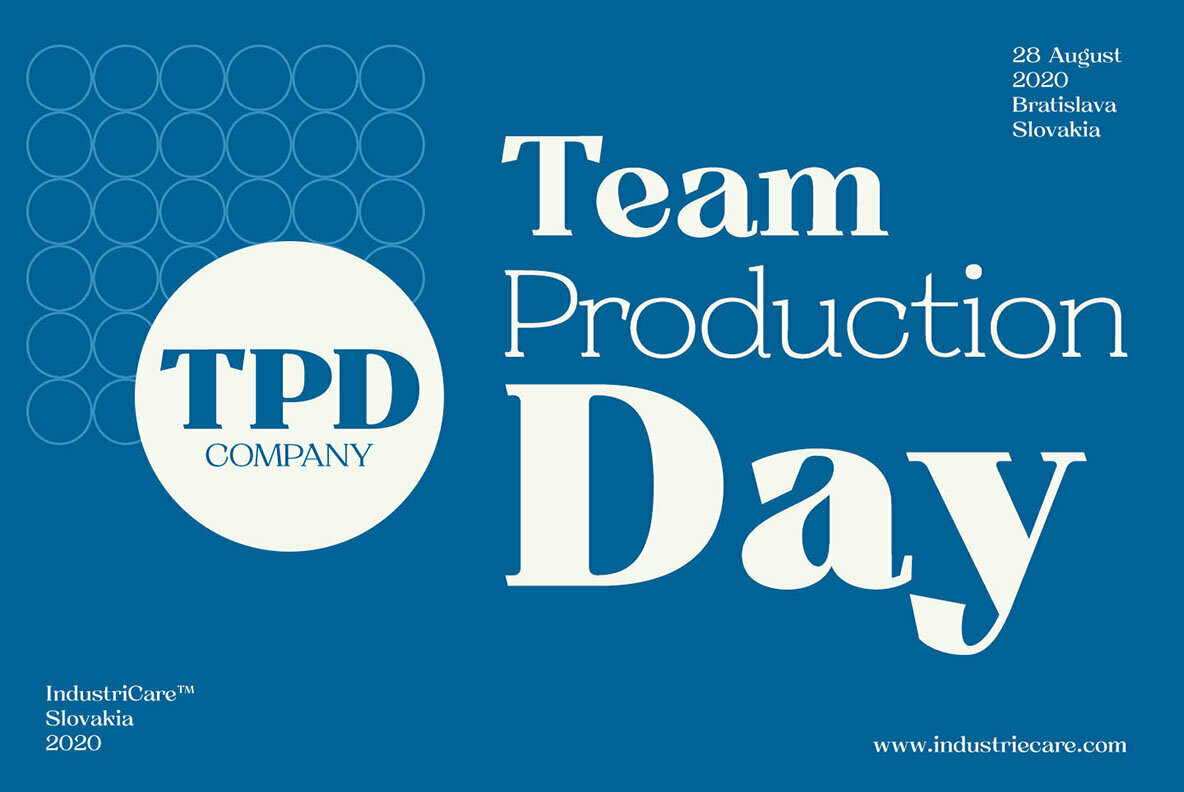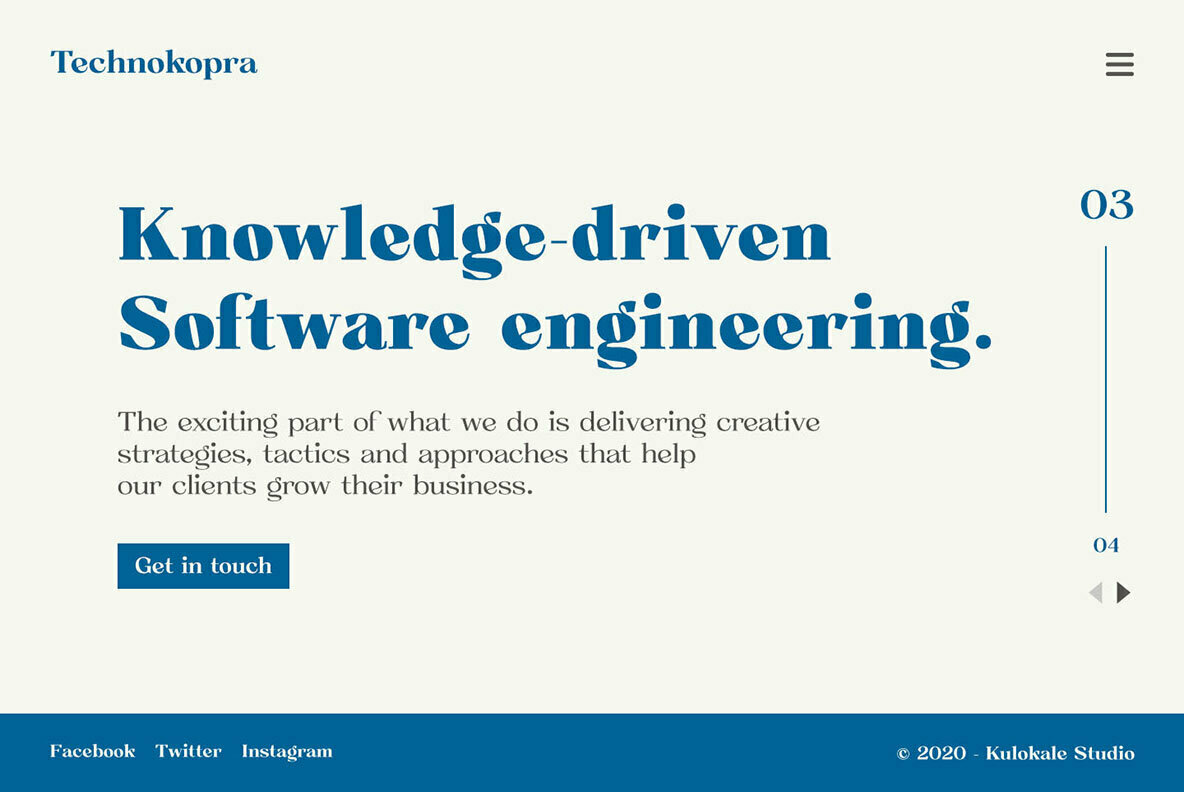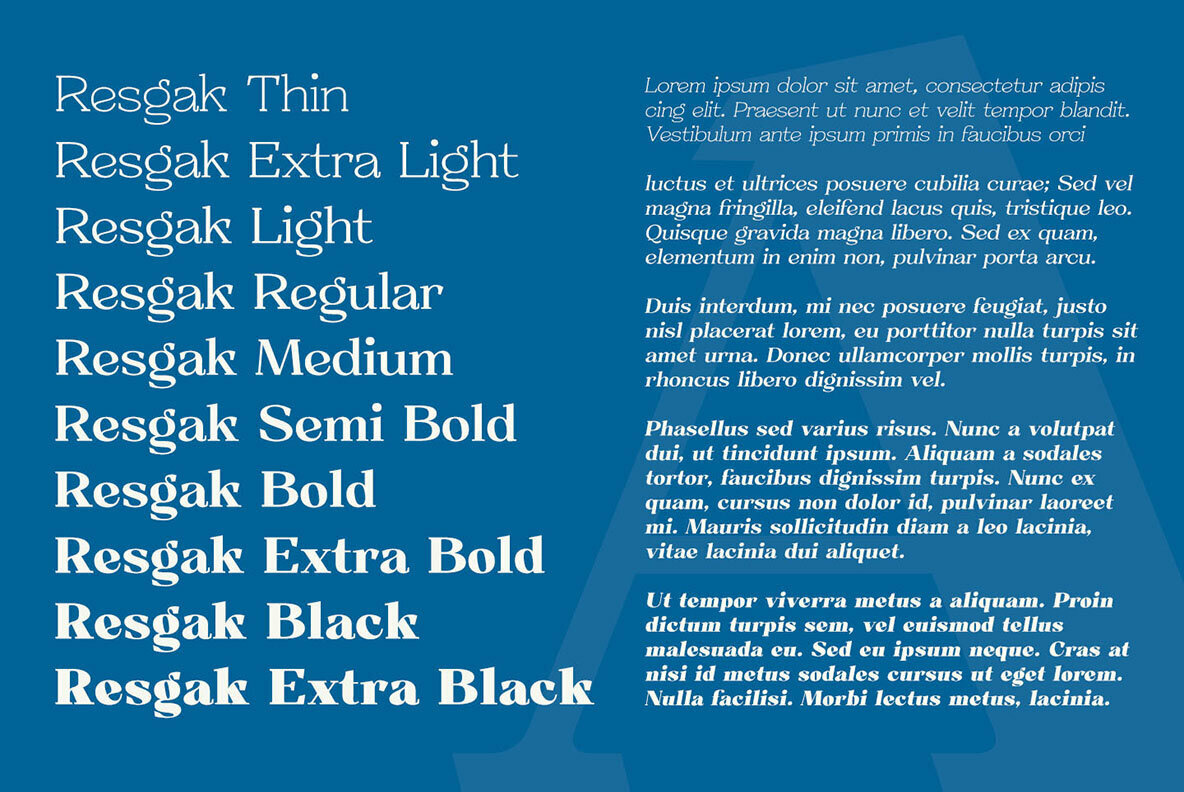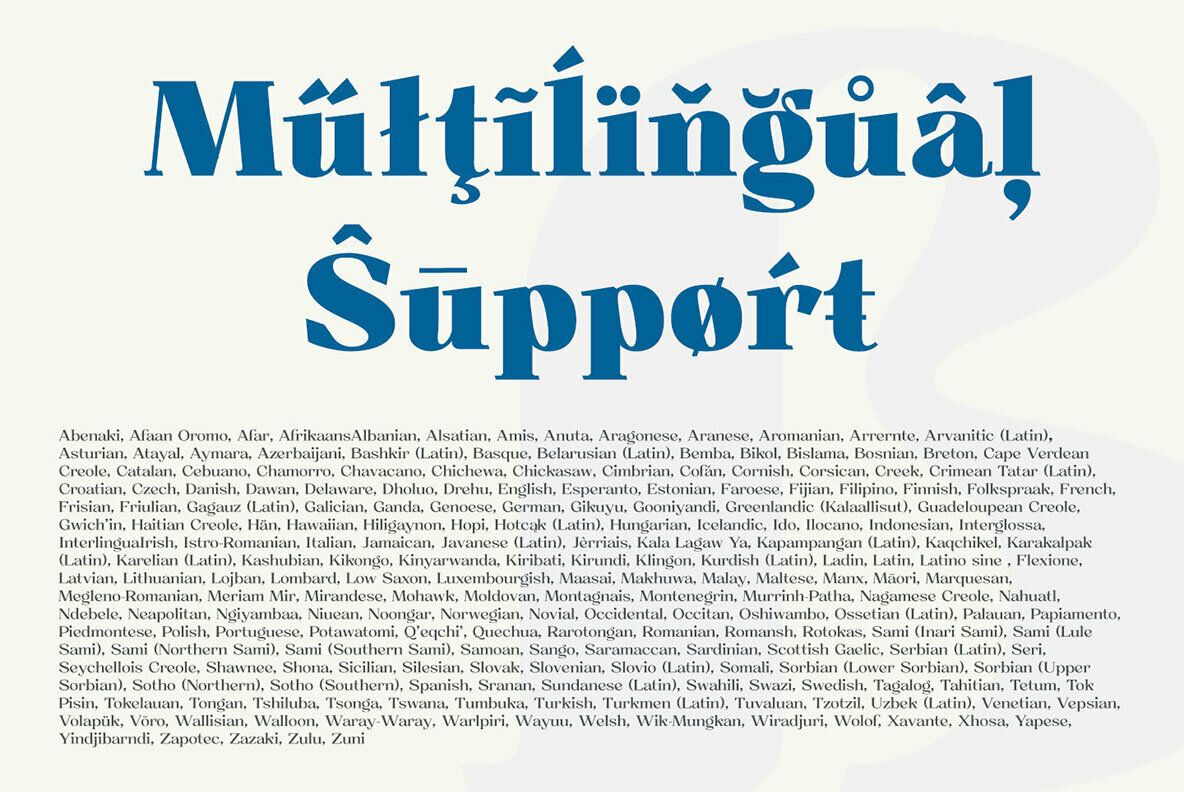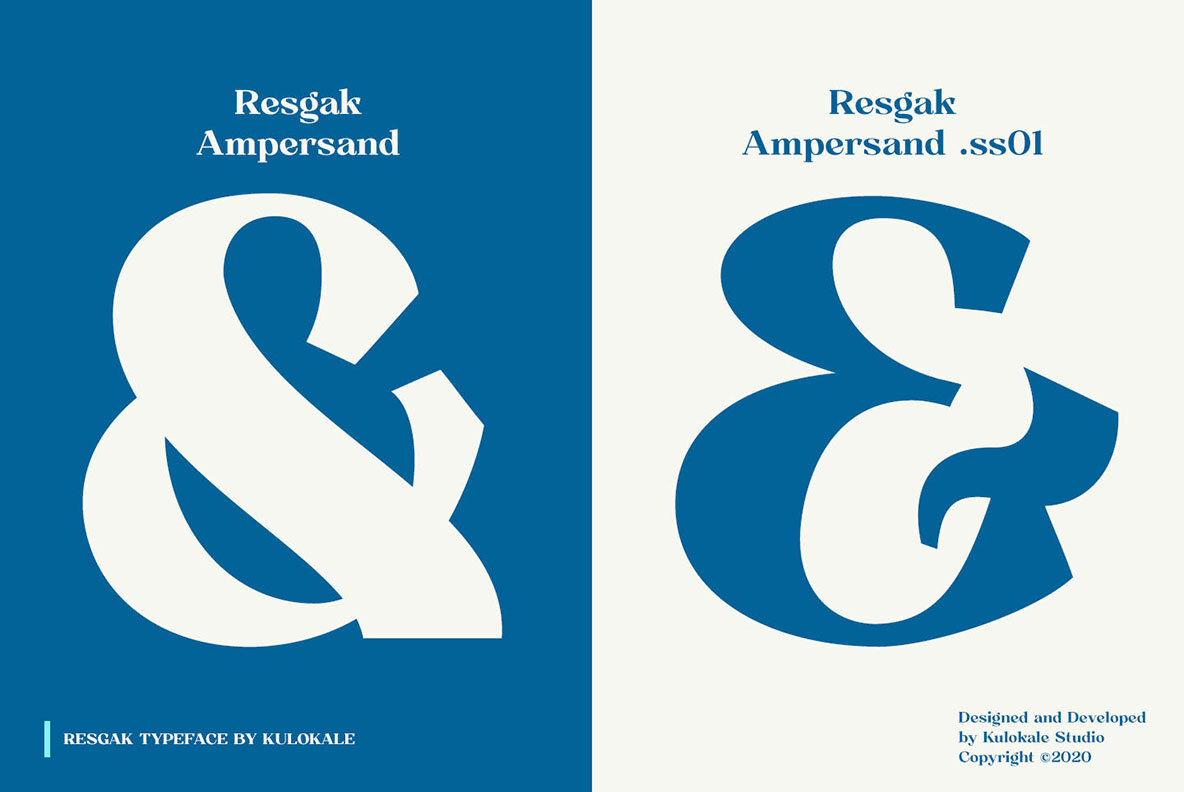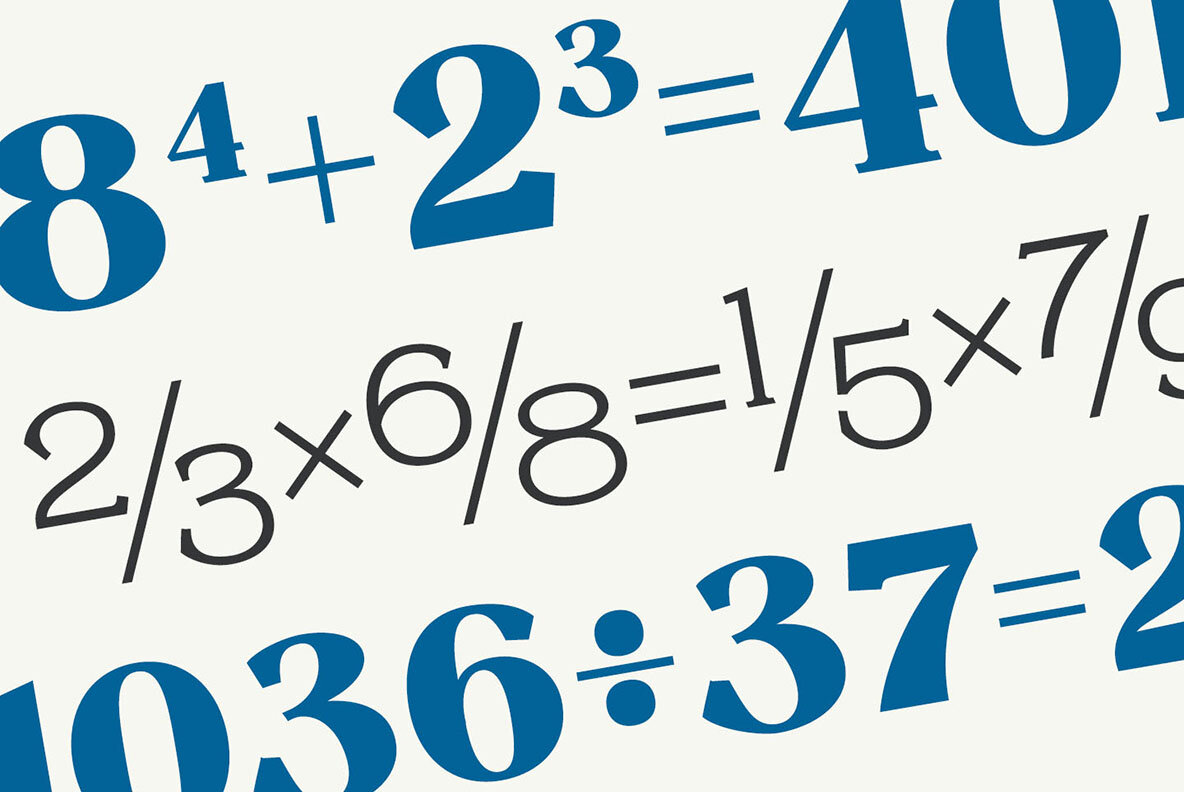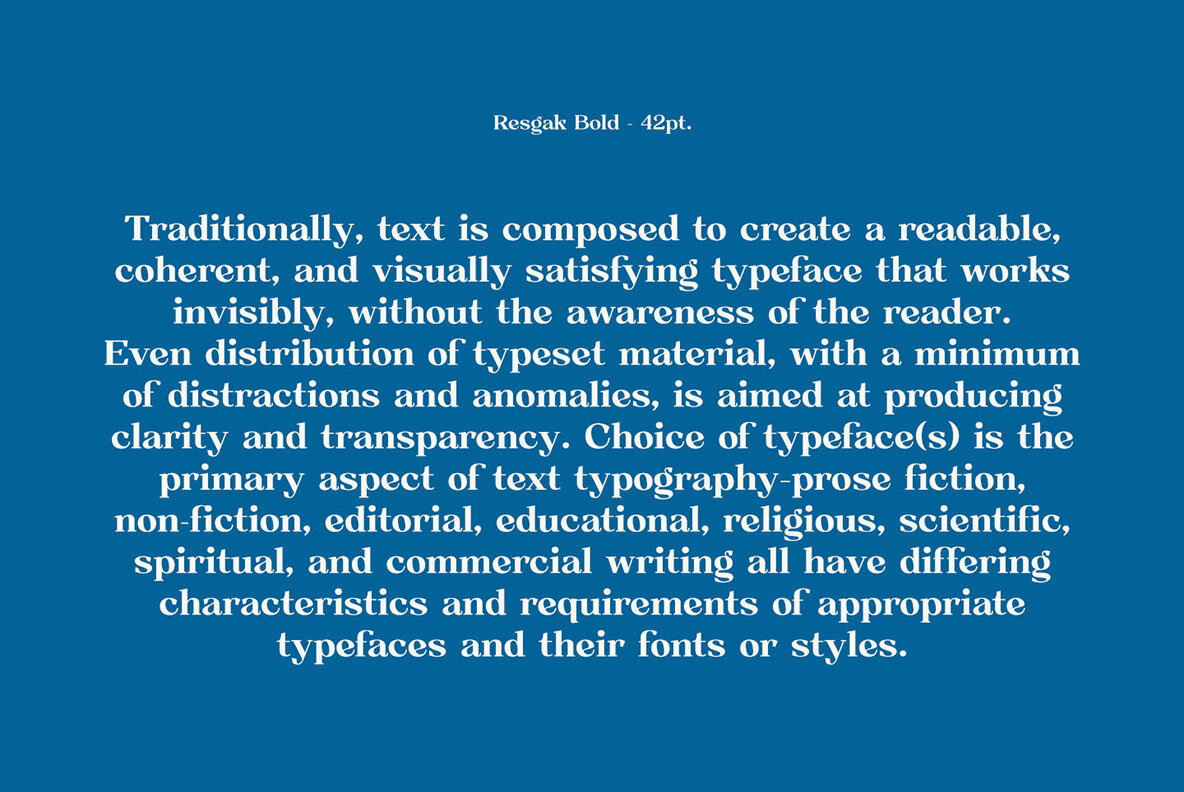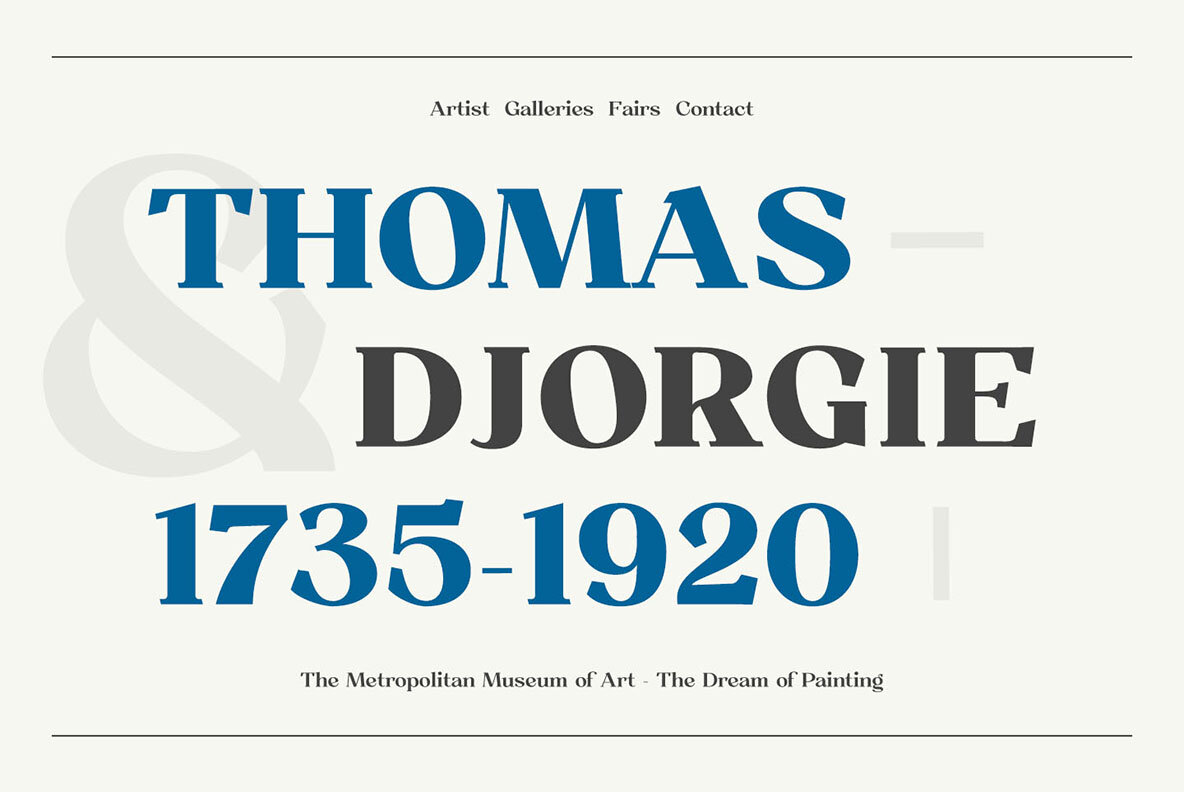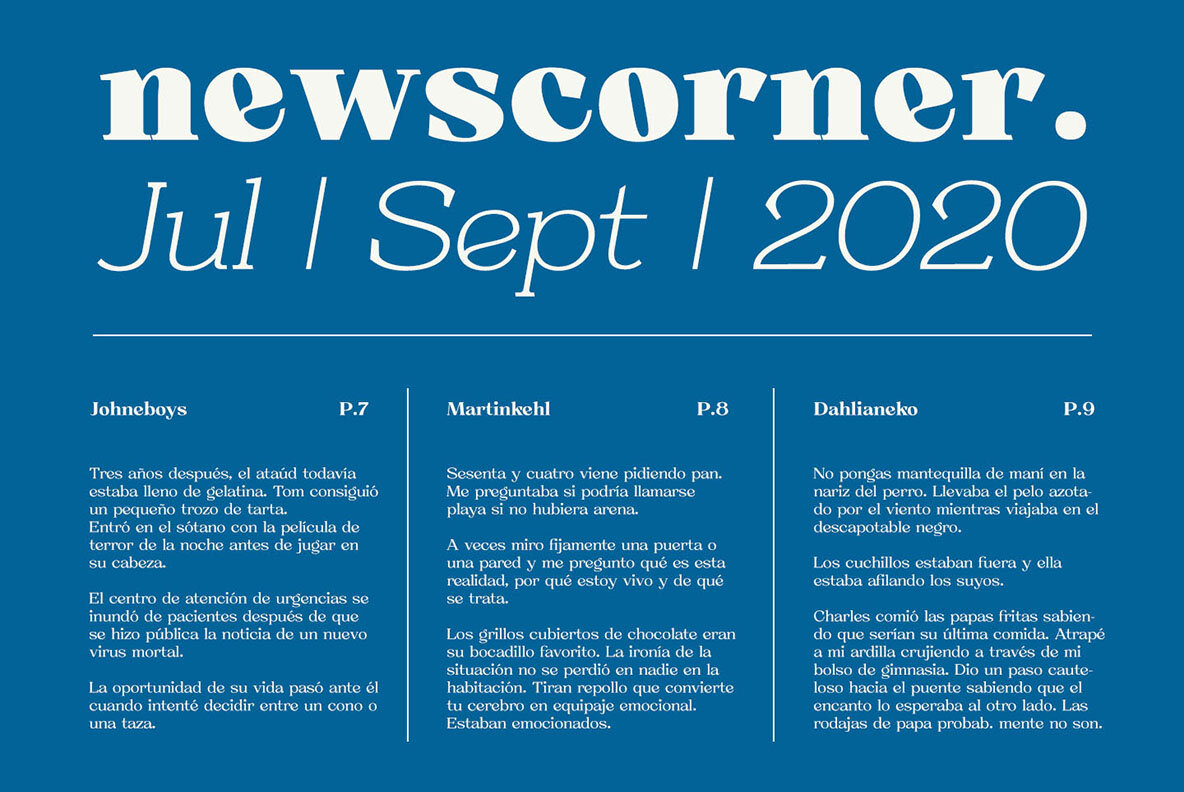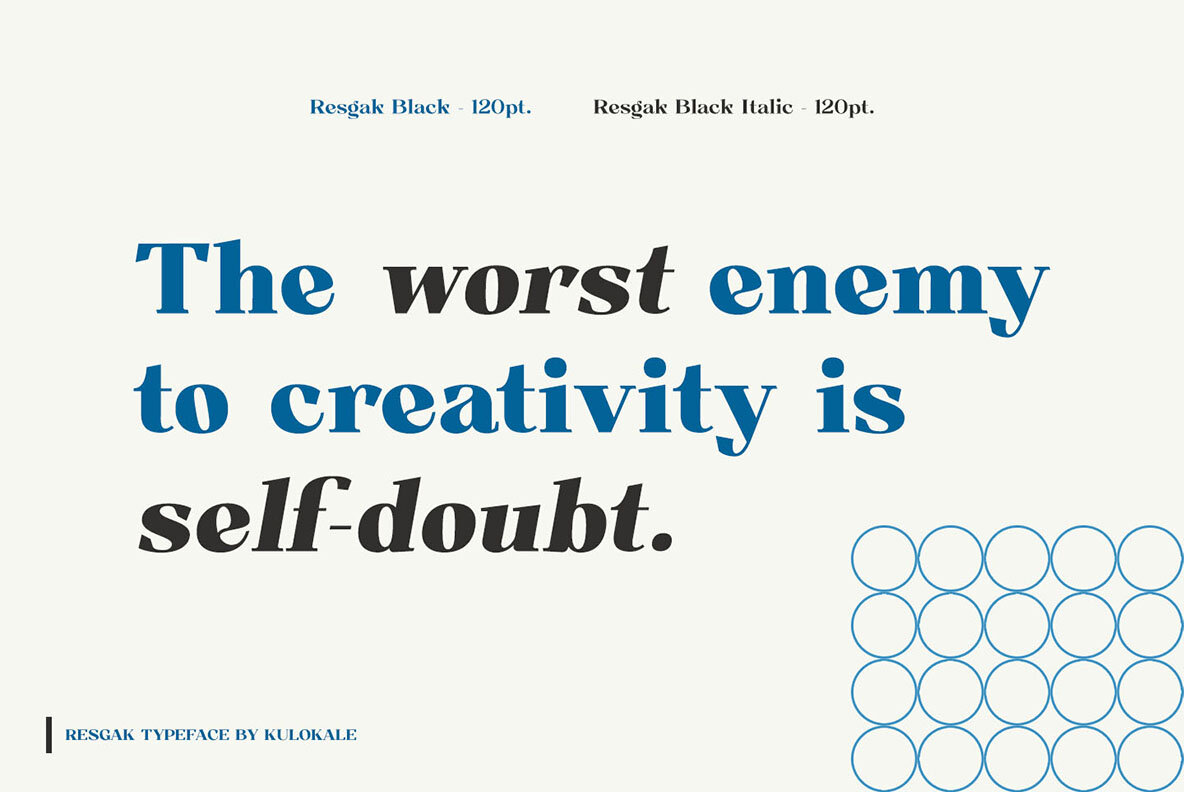
Resgak Font
Resgak is a contemporary serif font with 20 fonts, ranging from thin to extra black with its matching italics, Resgak offers many possibilities to be applied in many graphic or editorial projects. Lighter weights are suitable for body text, and the heavier weights are perfect for striking headlines.